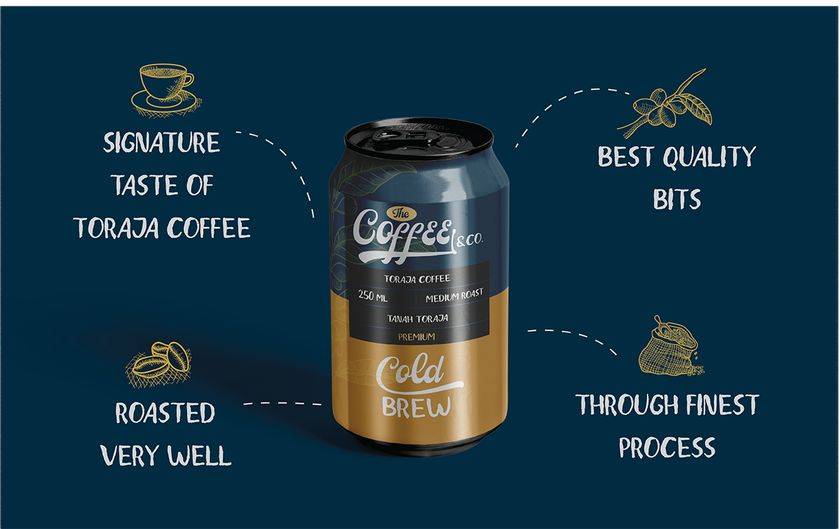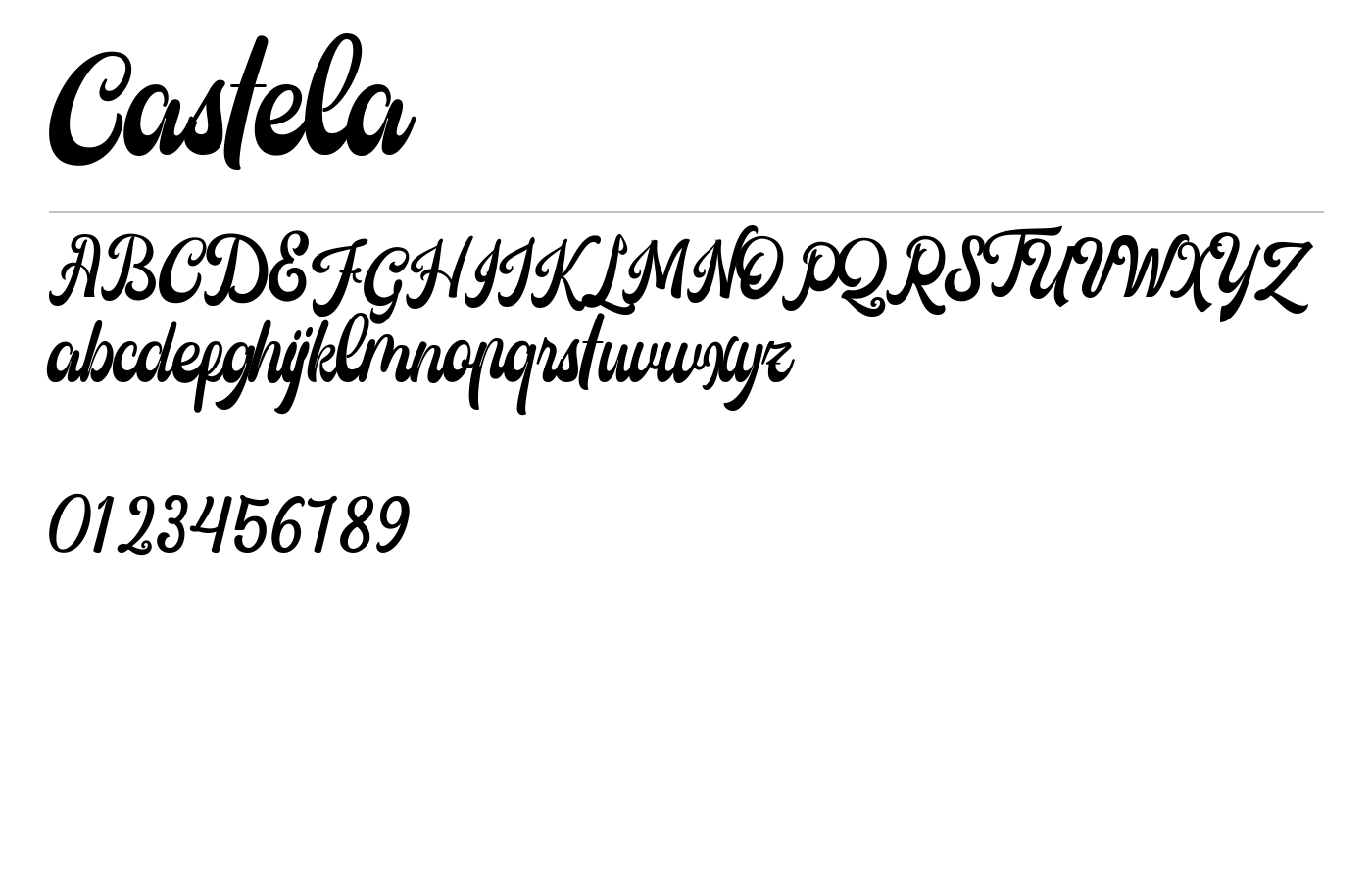
Castela is a bold, script-style font with a smooth, flowing design that combines elegance and a touch of vintage charm. Its rounded, connected letterforms and moderate contrast between thick and thin strokes give it a warm, inviting feel, making it ideal for branding, invitations, and stylish headlines where personality and readability matter. This font suits creative projects that seek a friendly yet sophisticated look.
Castela Font
About Castela Font